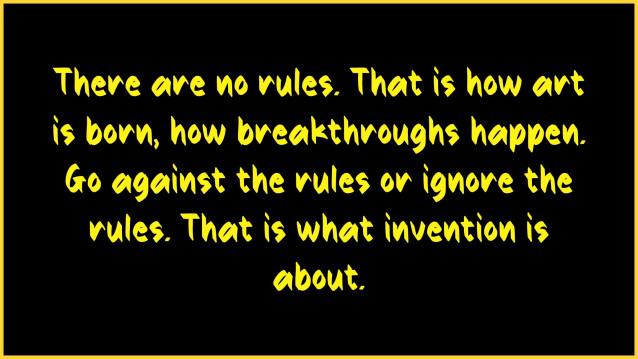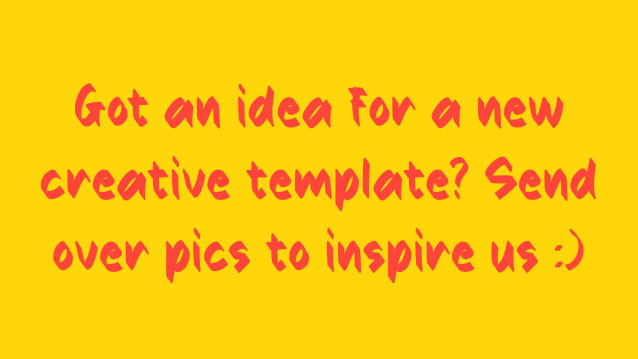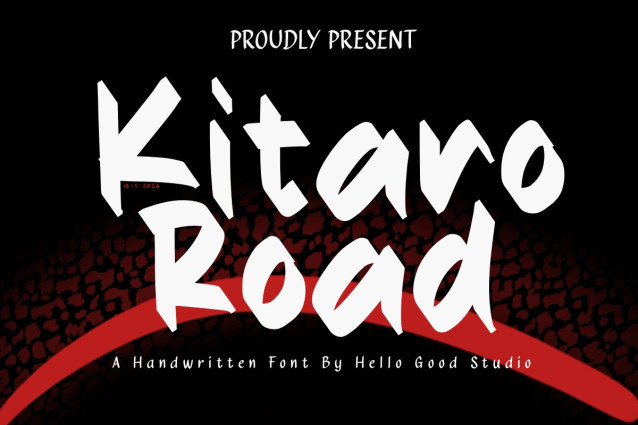
Kitaro Road Font
Kitaro Road Font is a bold, expressive display font that perfectly captures the raw energy and fluid motion of urban street culture. Blending the sharp, dynamic strokes of traditional brush calligraphy with a modern graffiti edge, this typeface is engineered to make an unforgettable visual statement.